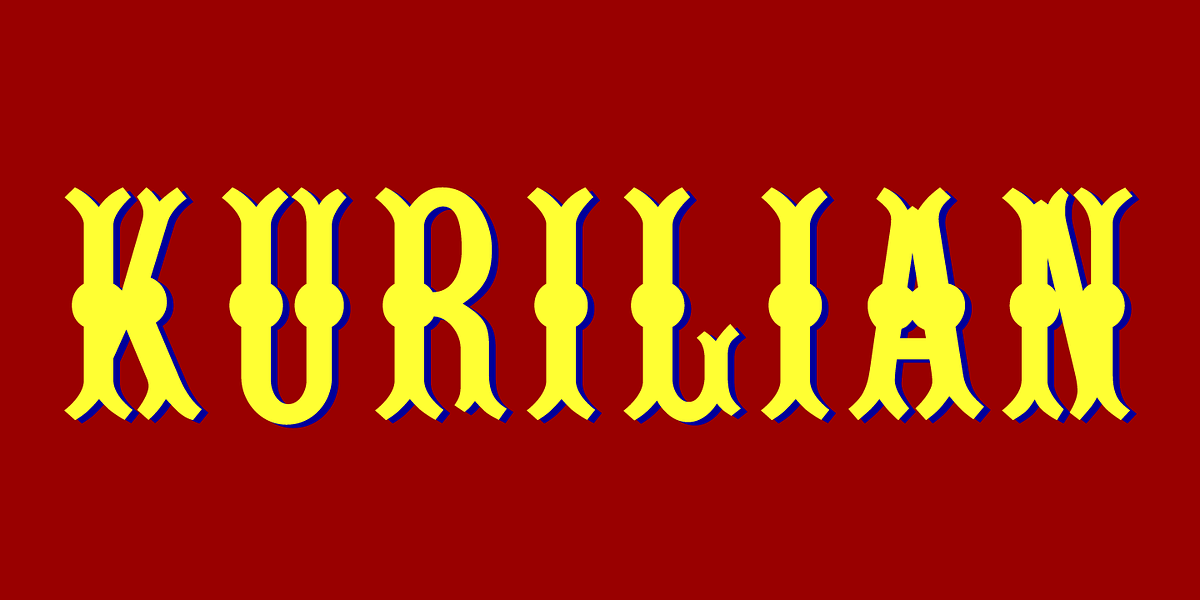
Kurilian
This font is a unique display typeface inspired by the distinctive look of wooden type commonly used in printing during the 19th century. It features an all-caps design and likely lacks lowercase letters, reflecting its historical origins. The font would be suitable for headlines, posters, and branding projects seeking a vintage aesthetic.